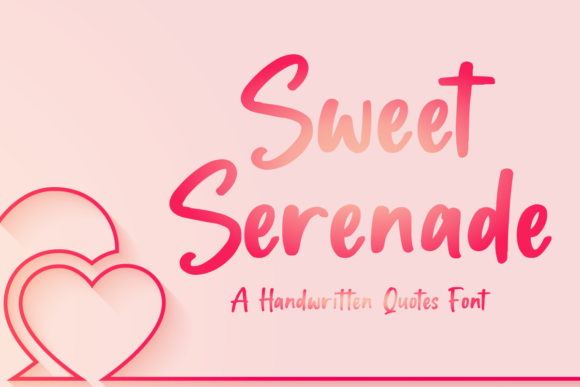
Indulge in the captivating allure of Sweet Serenade, a display font that exudes charm and elegance. This Valentine's Day-inspired creation from Fikryal Studio is a symphony of playful curves and enchanting strokes, ready to infuse your designs with a touch of pure joy.
With Sweet Serenade, every letter becomes a heartfelt melody, dancing across your creations with a carefree spirit. Its playful nature lends itself perfectly to love letters, greeting cards, and branding that aims to evoke a sense of warmth and affection.
Imagine the smiles that will bloom when they receive your words, adorned in the whimsical grace of Sweet Serenade. It's a font that transforms simple messages into cherished keepsakes, expressing your love and admiration in a way that resonates deeply.
Beyond its romantic appeal, Sweet Serenade also possesses a versatility that makes it perfect for a wide range of design projects. Its whimsical charm adds a touch of lightheartedness to invitations, posters, and social media graphics.
Whether you're crafting a heartfelt Valentine's Day message or seeking to add a touch of joy to your everyday designs, Sweet Serenade is the perfect font to make your words sing. Embrace its playful spirit and let your creativity soar.